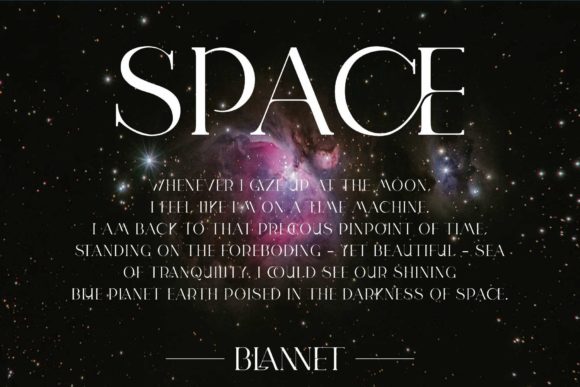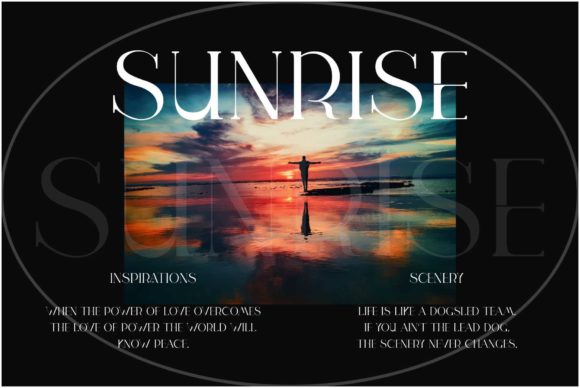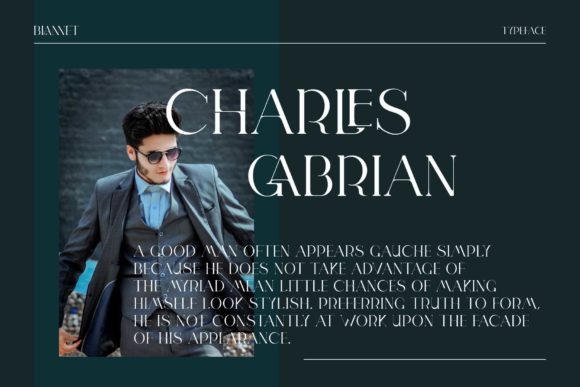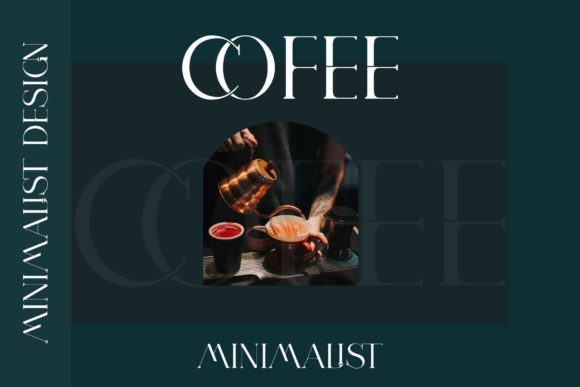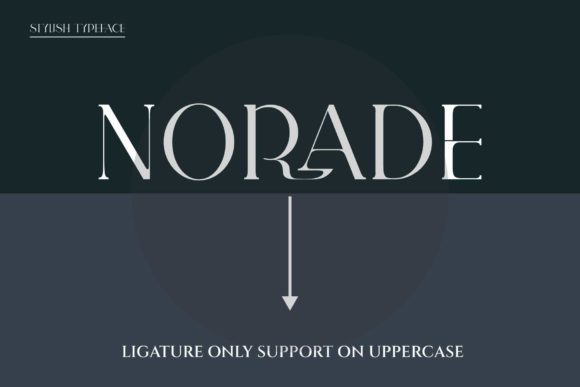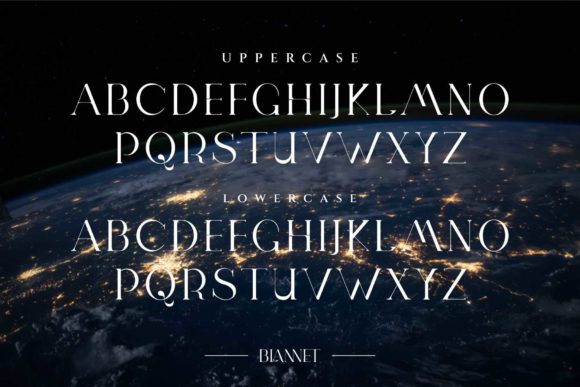
Introducing Blannet Font: The Perfect Blend of Modern and Classic Elegance
In the world of typography, fonts play a crucial role in conveying the tone and personality of a brand or design. For designers and crafters looking for a font that exudes elegance, sophistication, and a touch of nostalgia, Blannet Font is an excellent choice. This beautiful serif font seamlessly blends modern style with a vintage feel, making it perfect for a wide range of applications, from business cards to fashion magazines.
What Makes Blannet Font Stand Out?
Blannet Font is characterized by its elegant and classy serif design. The font’s modern look is balanced by a nostalgic feel, which gives it a unique and timeless quality. The carefully crafted letterforms feature subtle flourishes and refined lines, making Blannet Font suitable for designs that require a high level of sophistication.
Key Features of Blannet Font
- Elegant Serif Design: Blannet Font boasts a classic serif design with a modern twist, making it perfect for designs that require a touch of elegance.
- Modern and Nostalgic Feel: The font’s unique blend of modern and vintage elements gives it a distinctive character that sets it apart from other fonts.
- High Versatility: Blannet Font works great for a wide range of applications, including business cards, branding, fashion magazines, and more.
- Excellent Legibility: The font’s clear and refined letterforms ensure excellent legibility, making it suitable for both print and digital designs.
Use Cases for Blannet Font
Blannet Font is an incredibly versatile font that can be used in various design projects. Here are some examples of how you can use this beautiful font:
- Business Cards: Create elegant and professional business cards that make a lasting impression with Blannet Font.
- Branding: Use Blannet Font to develop a sophisticated brand identity that exudes luxury and refinement.
- Fashion Magazines: Add a touch of glamour and sophistication to your fashion magazine designs with Blannet Font.
- Wedding Stationery: Create beautiful and elegant wedding stationery, including invitations, menus, and place cards, with Blannet Font.
Tips for Using Blannet Font Effectively
To get the most out of Blannet Font, here are some tips to keep in mind:
- Pair with Other Fonts: Experiment with pairing Blannet Font with other fonts to create a unique and visually appealing typography.
- Adjust Font Size: Adjust the font size to suit your design needs, and make sure to maintain legibility.
- Use Font Variations: Take advantage of font variations, such as bold and italic, to add emphasis and create visual hierarchy.
Blannet Font is a stunning serif font that offers a perfect blend of modern style and nostalgic elegance. Its versatility, legibility, and sophisticated design make it an excellent choice for designers and crafters looking to create beautiful and refined designs. Whether you’re working on a business card, branding project, or fashion magazine, Blannet Font is sure to impress.